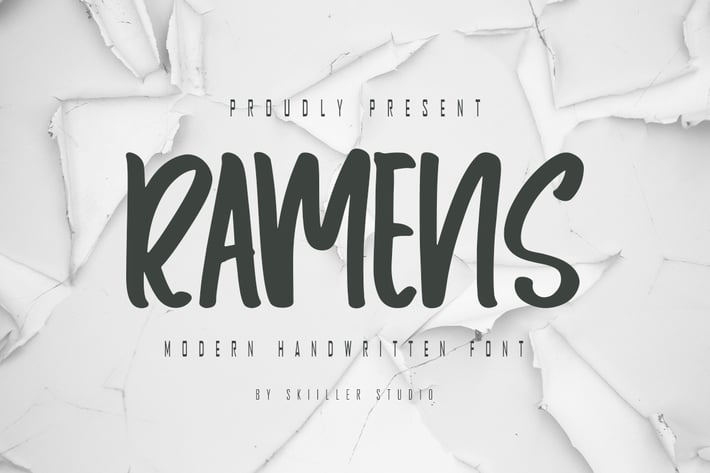
Ramens - Modern Handwritten Font
Ramens is a unique and elegant handwritten font. It looks beautiful on a variety of designs requiring a personalized style, This font is PUA encoded which means you can access all of the glyphs and swashes with ease!